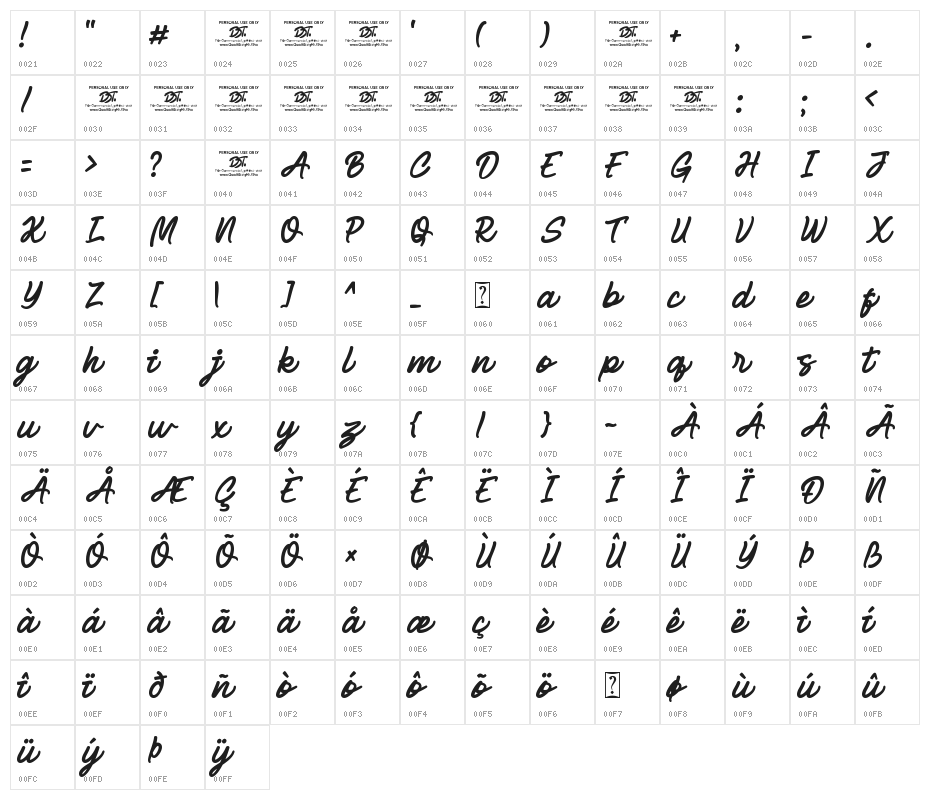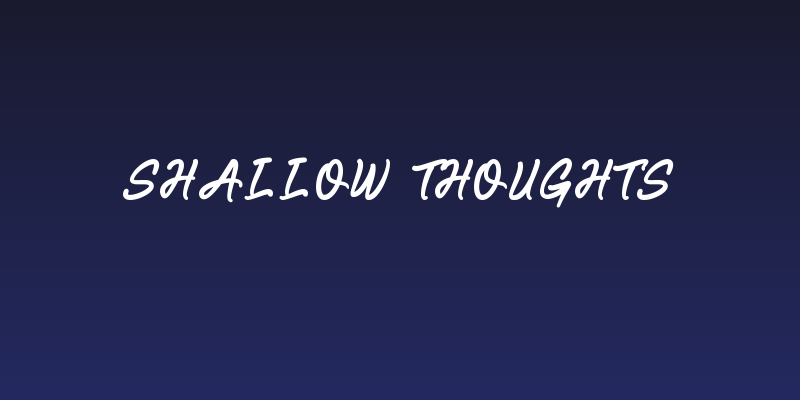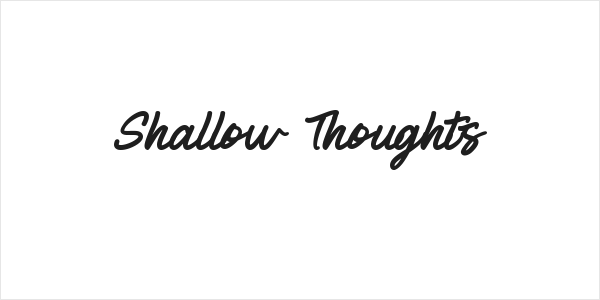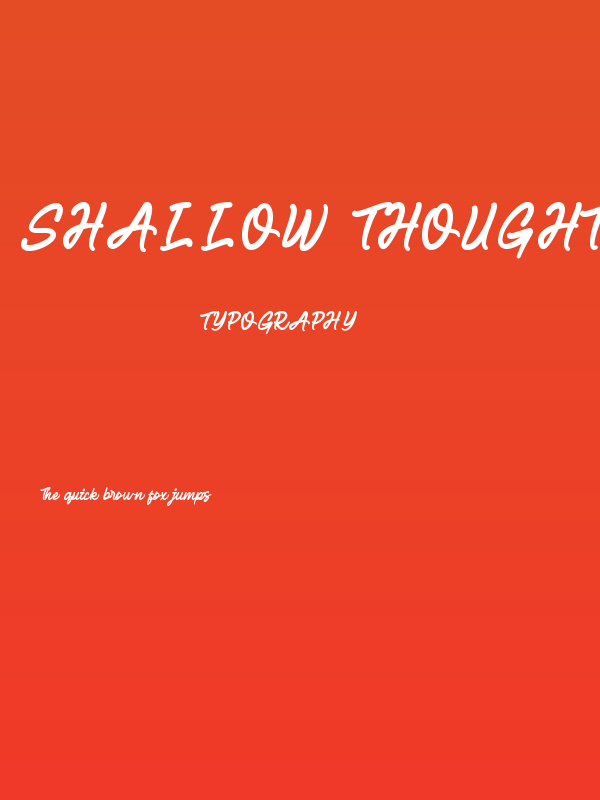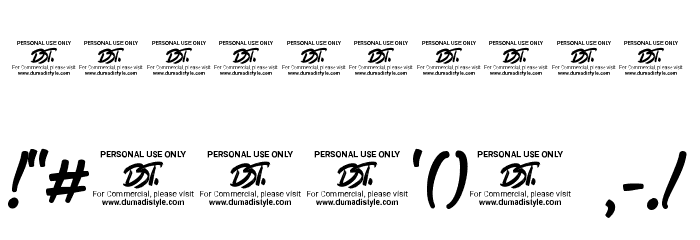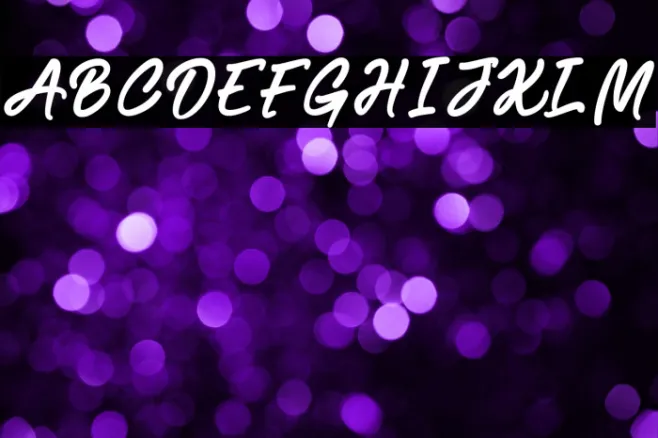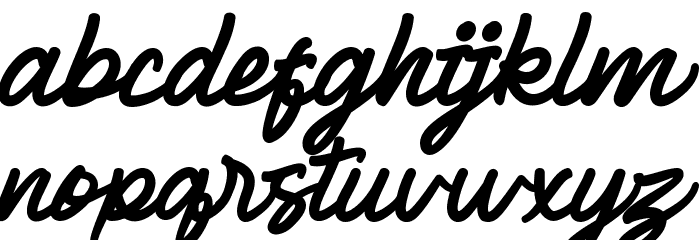
Shallow Thoughts Font
Shallow Thoughts Description
This font features a bold, cursive style with a smooth, flowing appearance. The characters are connected, giving it a handwritten feel that is both elegant and dynamic. The uppercase letters are slightly larger and more pronounced, while the lowercase letters maintain a consistent flow. The font includes a full set of uppercase and lowercase letters, numbers, and a selection of special characters. Its bold strokes and smooth curves make it stand out, suitable for creating a personal and expressive touch in design projects.